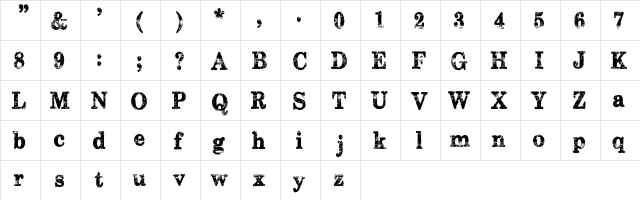
Subway Novella Regular
| Foundry | Kevin Christopher |
| Designer | Kevin Christopher |
Design Context for Subway Novella Typeface
Subway Novella is a composed and adaptable typeface that performs quietly and consistently across a wide range of design contexts.